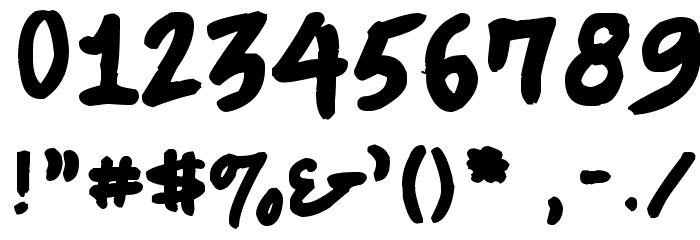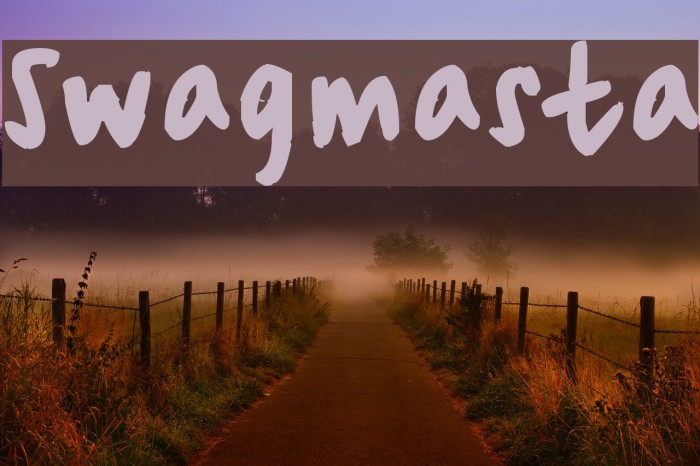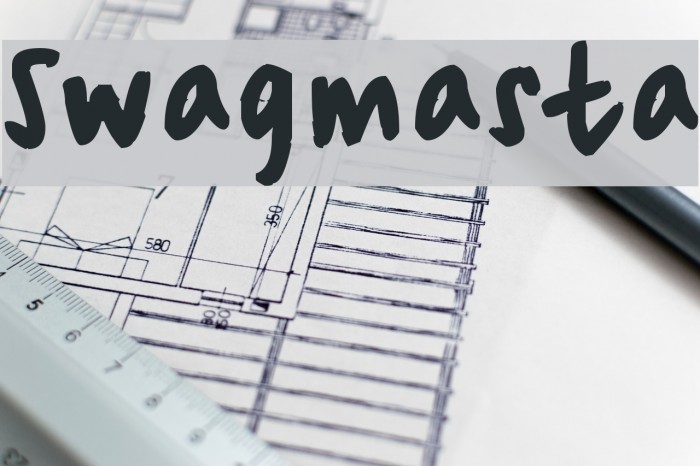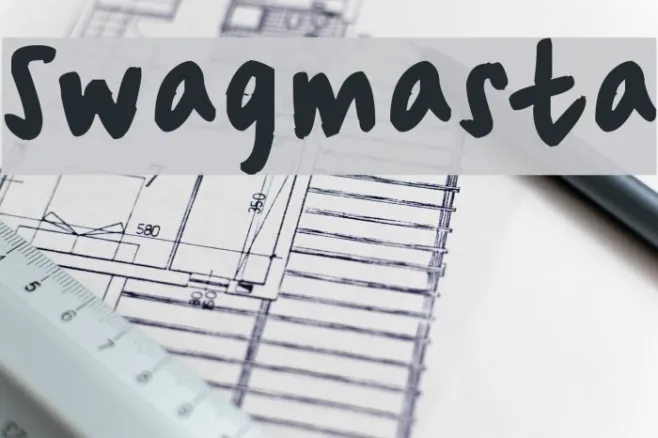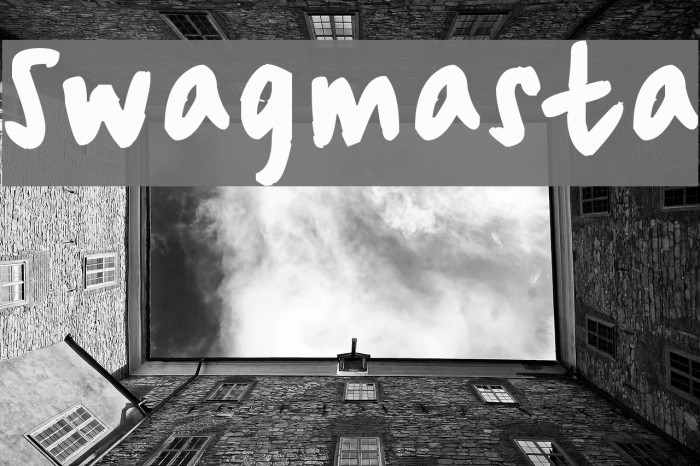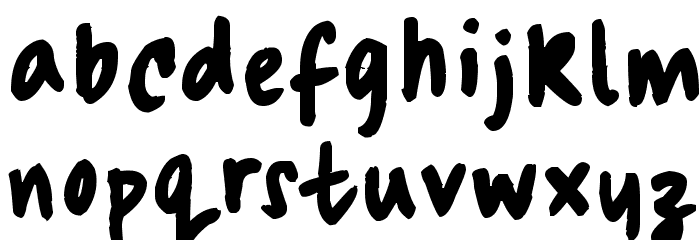
Swagmasta Font
This font features a bold and expressive handwritten style, characterized by its thick strokes and playful, informal appearance. The letters are slightly irregular, giving it a dynamic and energetic feel. The uppercase and lowercase characters maintain a consistent weight, creating a harmonious look. The numbers and special characters are equally bold, ensuring readability and impact. This font is perfect for projects that require a personal touch or a casual, friendly vibe.
A bold, expressive handwritten font with thick strokes and a playful style.
• Proposed Projects: Ideal for greeting cards, posters, social media graphics, and branding projects that require a personal and informal touch.
• Category: Handwritten
• Overall Style: Casual, Playful
• Use Case: Headlines, Logos, Posters